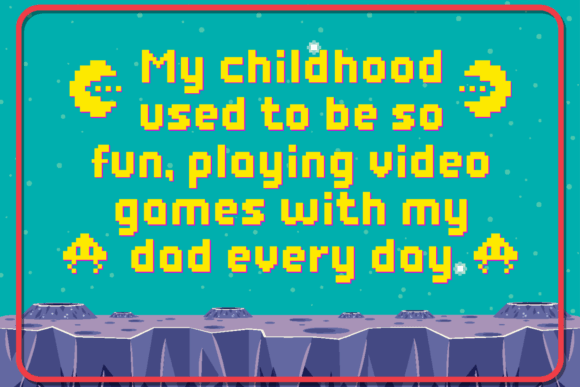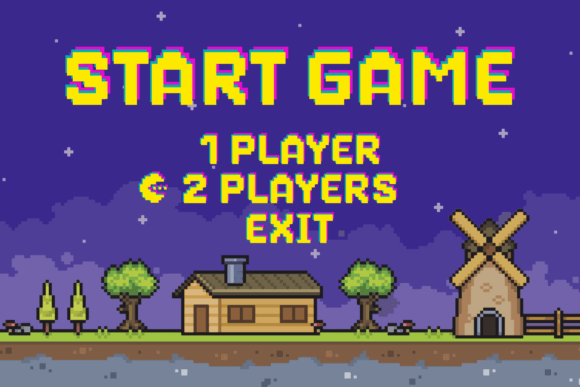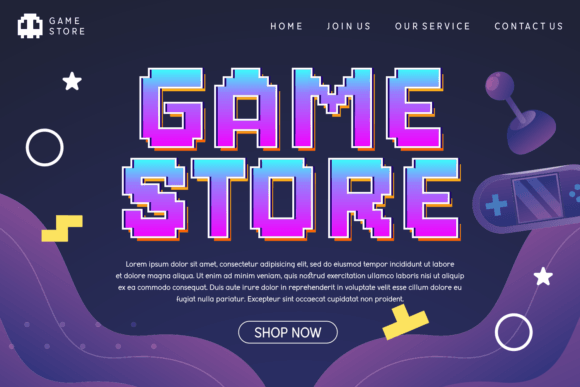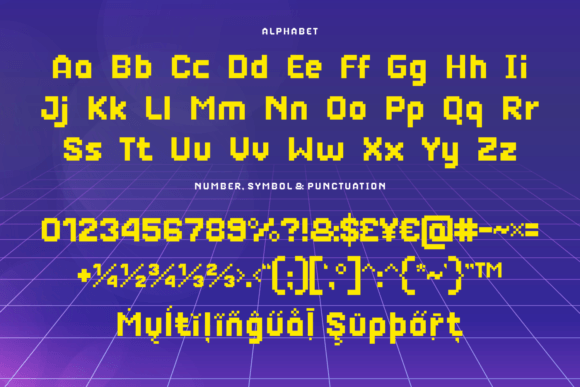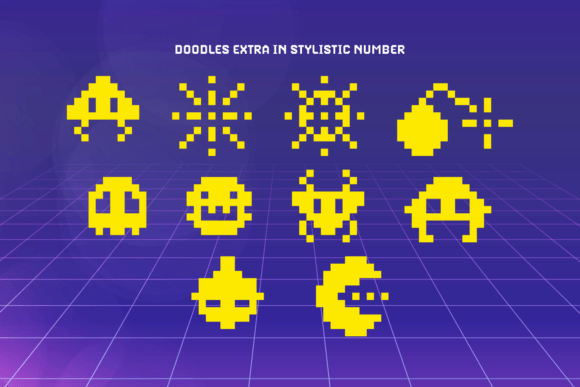
Introducing Game Stage Font: The Ultimate Arcade Display Font
Are you looking for a font that can add a touch of fun and excitement to your design project? Look no further than Game Stage Font, an arcade display font that is sure to bring a playful and nostalgic vibe to your work. With its unique and chunky shapes, playful angles, and bold strokes, Game Stage Font is the perfect choice for designers and crafters who want to add a bit of personality and vibrancy to their designs.
What Makes Game Stage Font So Special?
Game Stage Font is not just any ordinary font. Its unique and playful style is inspired by the classic arcade games of the past, with chunky shapes and playful angles that exude a sense of fun and excitement. The font’s bold strokes and bright colors add a touch of personality and vibrancy, making it perfect for designs that need to stand out from the crowd.
One of the key features that sets Game Stage Font apart is its PUA encoding. This means that you can access all glyphs and swashes effortlessly, giving you complete creative control over your design. Whether you’re a professional designer or a crafter, Game Stage Font is easy to use and allows you to create stunning designs with minimal effort.
The Benefits of Using Game Stage Font
So why should you choose Game Stage Font for your design project? Here are just a few benefits of using this amazing font:
- Unique and Playful Style: Game Stage Font has a one-of-a-kind style that is sure to grab attention and add a touch of fun to your designs.
- Easy to Use: With PUA encoding, accessing glyphs and swashes is a breeze, making it easy to create stunning designs.
- Versatile: Game Stage Font is perfect for a wide range of design projects, from posters and flyers to logos and branding.
- Nostalgic Vibe: The font’s arcade-inspired style is sure to bring back memories of classic video games, adding a touch of nostalgia to your designs.
How to Use Game Stage Font in Your Designs
Using Game Stage Font in your designs is easy. Here are a few tips to get you started:
- Pair it with Other Fonts: Game Stage Font pairs well with other fonts, so don’t be afraid to experiment with different combinations to create a unique look.
- Use it for Headings: The font’s bold strokes and bright colors make it perfect for headings and titles.
- Add Some Swashes: With PUA encoding, you can easily add swashes and glyphs to your design to give it a bit of extra flair.
Who Can Benefit from Game Stage Font?
Game Stage Font is perfect for a wide range of designers and crafters, including:
- Graphic Designers: Whether you’re working on a logo, brochure, or poster, Game Stage Font is a great choice.
- Crafters: If you’re creating handmade cards, scrapbooking, or other crafts, Game Stage Font is a great way to add a personal touch.
- Digital Artists: The font’s bold strokes and bright colors make it perfect for digital art projects.
In conclusion, Game Stage Font is an amazing arcade display font that is sure to add a touch of fun and excitement to your design project. With its unique and playful style, bold strokes, and bright colors, it’s the perfect choice for designers and crafters who want to create stunning designs that stand out from the crowd. So why wait? Download Game Stage Font today and start creating!